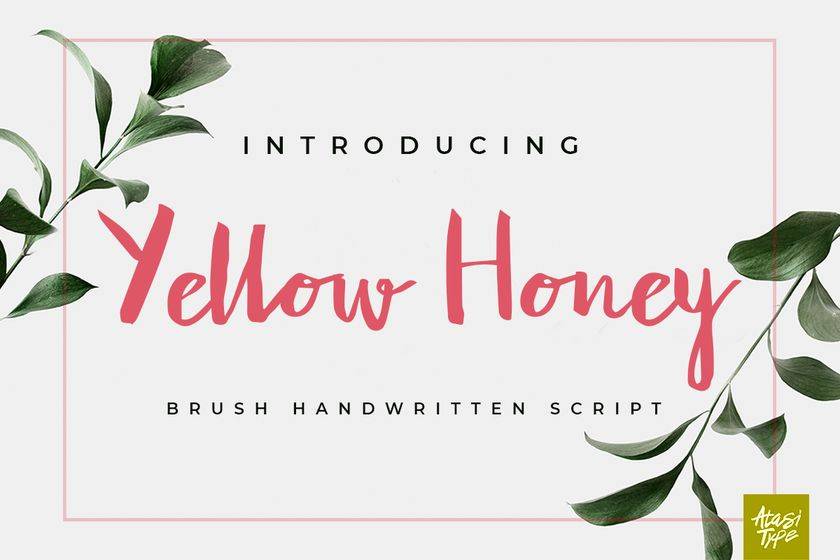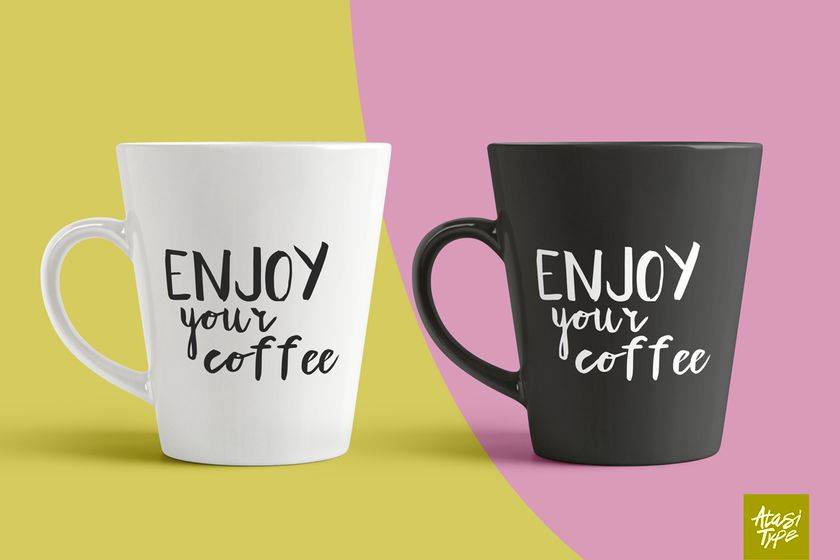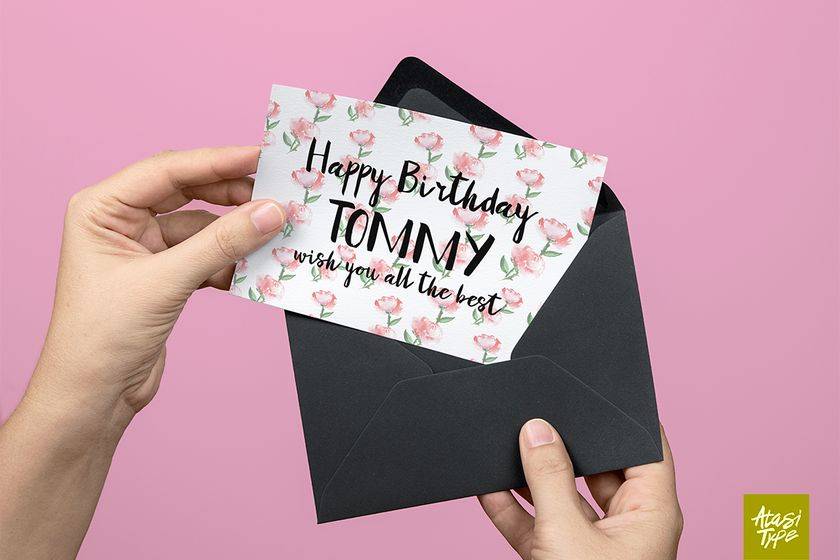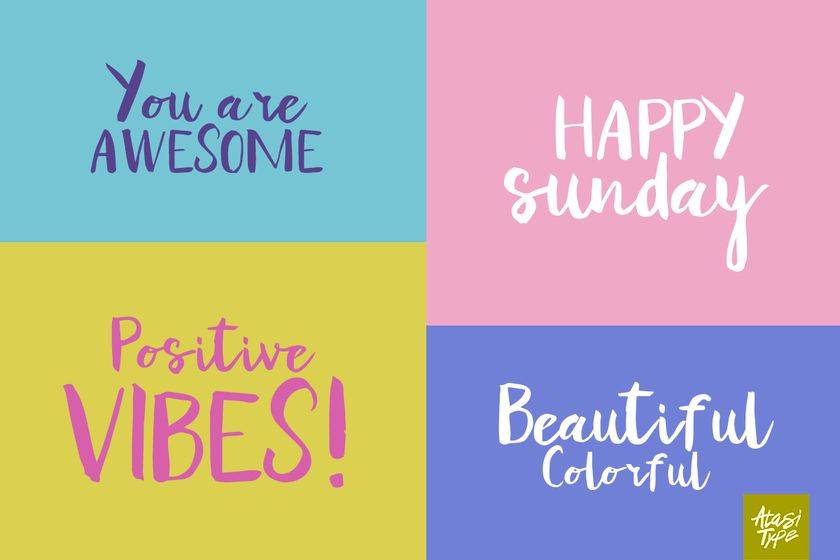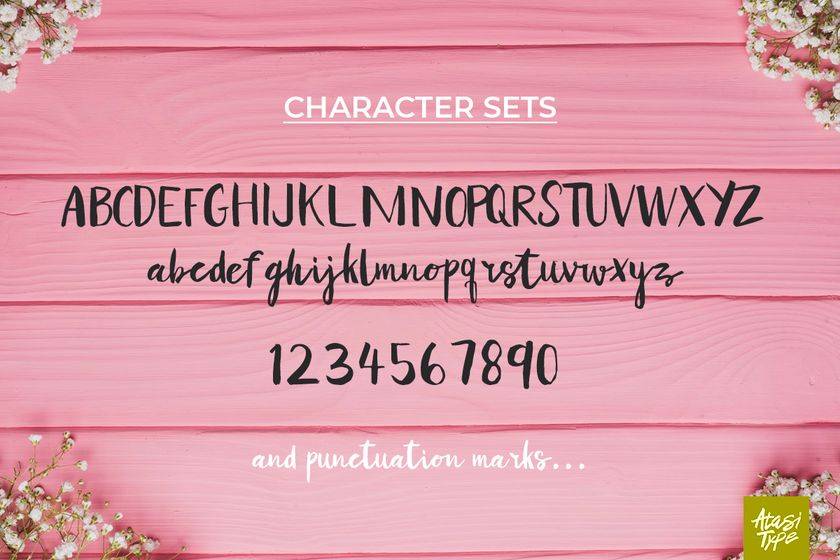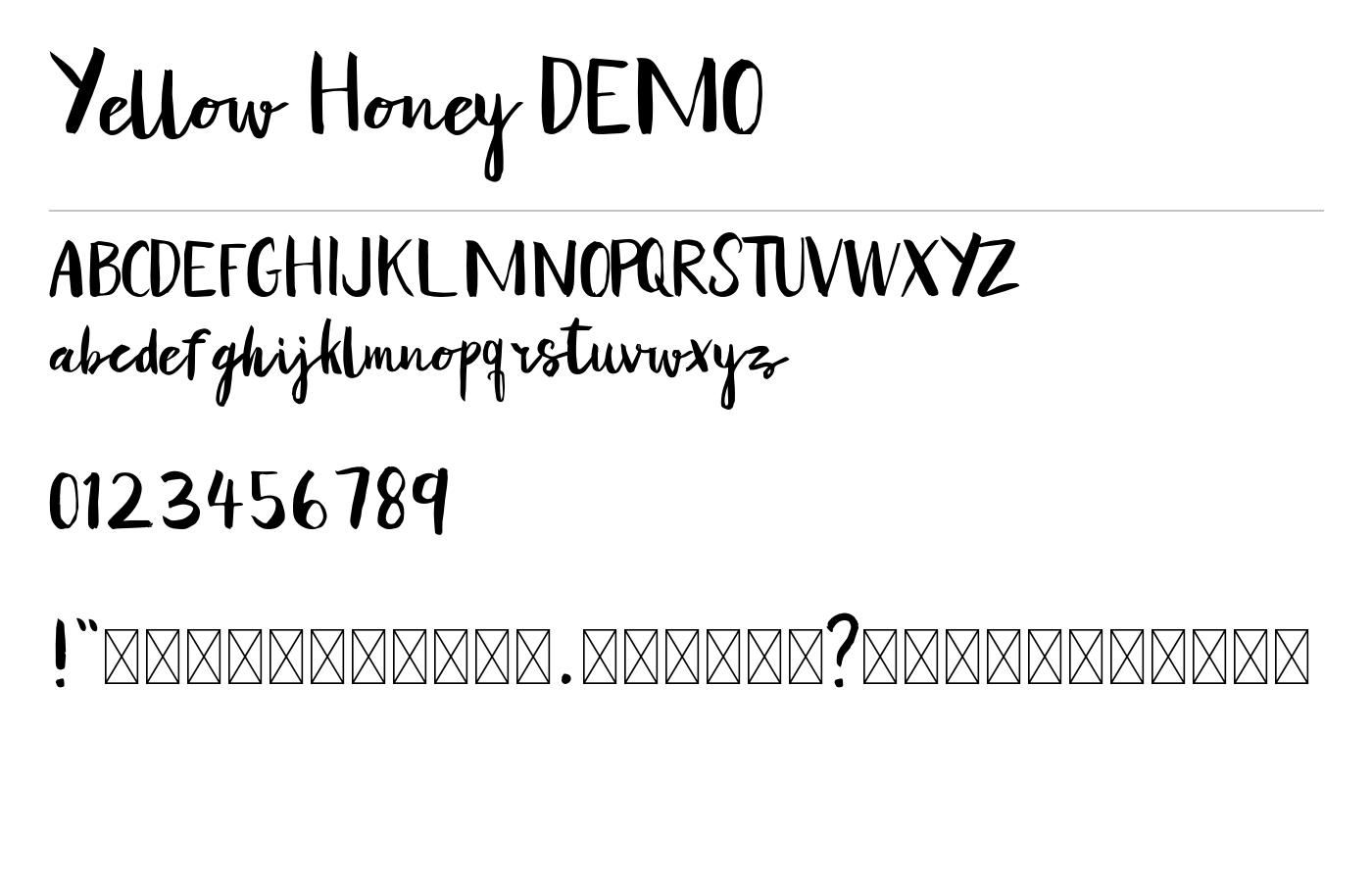
Yellow Honey is a playful and casual script font with a hand-drawn feel, featuring lively brush strokes and a natural, slightly irregular texture. Its tall, narrow letterforms with moderate contrast and friendly curves make it ideal for whimsical branding, informal invitations, and creative projects that benefit from a warm, approachable vibe. This font works best in headlines or short phrases where its unique personality can shine without sacrificing readability.
Yellow Honey Font
About Yellow Honey Font
| Font family | Yellow Honey Font |
| Designer | Atasi Studio |